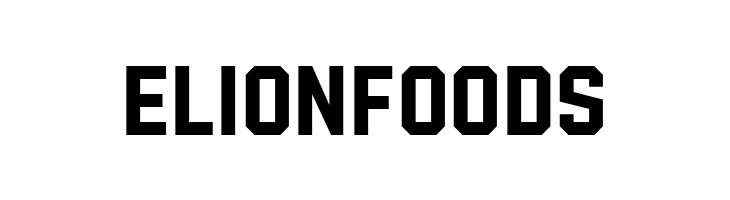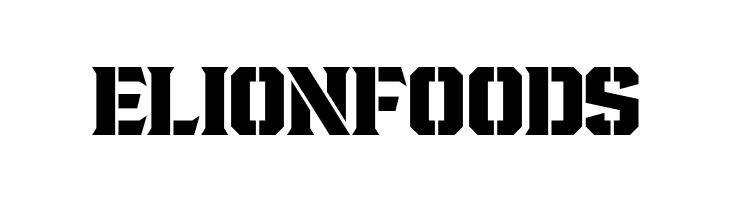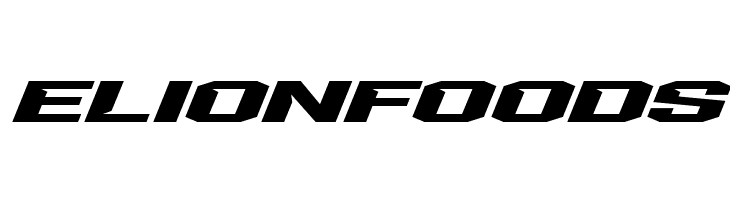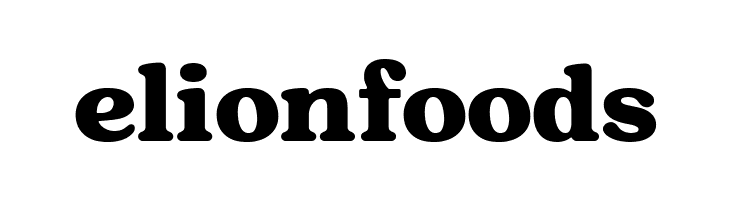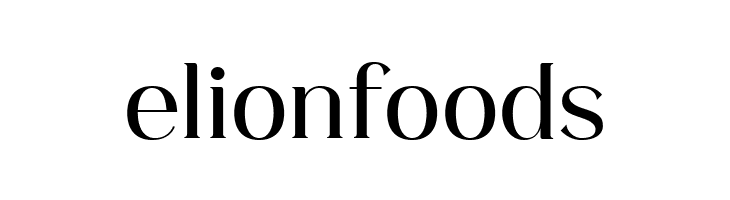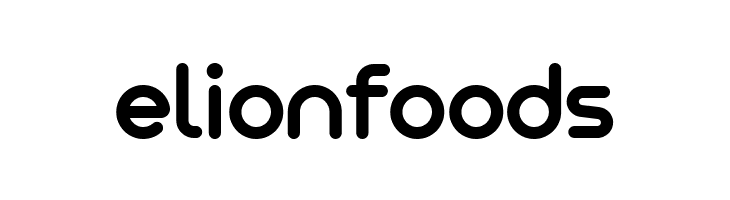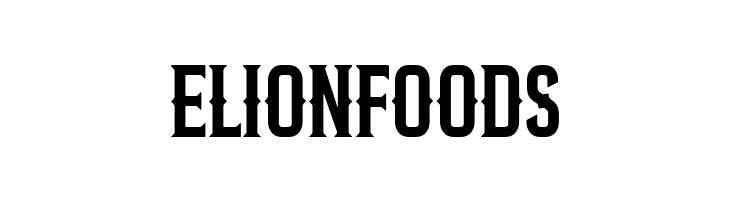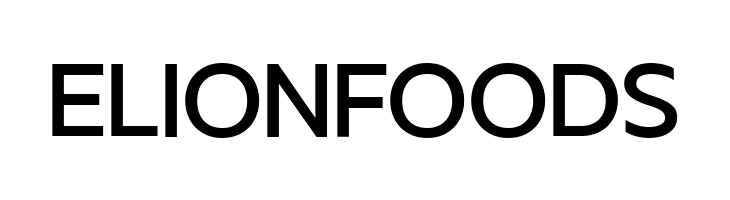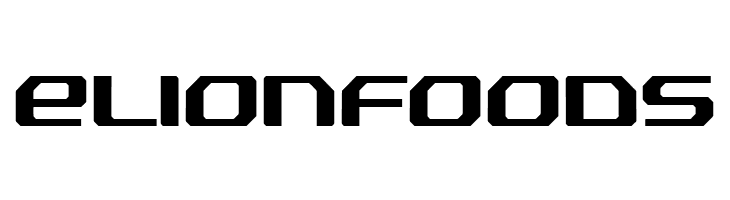
A bold, geometric font with strong, angular lines and a modern aesthetic.
A bold, geometric font with strong, angular shapes and a modern industrial feel.
A bold, modern font with sharp angles and an expanded width, perfect for dynamic headlines.
A bold serif font with strong strokes and classic design.
A bold, brush-style script font with dynamic, fluid strokes.
An elegant serif font with high contrast and a modern twist.
A bold, rounded sans-serif font with smooth curves and a modern look.
A bold, vintage serif font with a Western flair.
A modern, geometric sans-serif font with balanced proportions.
A futuristic and geometric font with bold, angular letterforms.